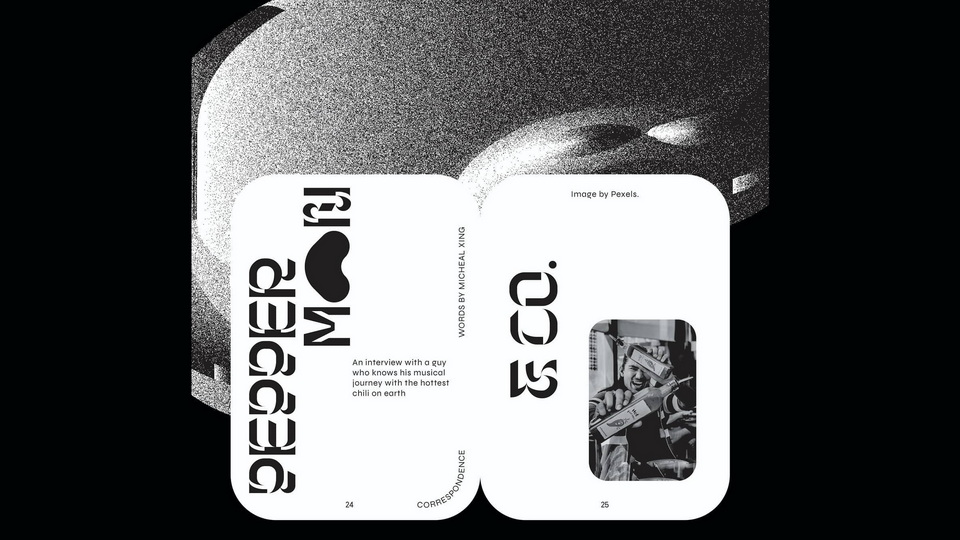
A take on modern inktrap typefaces, Capsaicin is a wilder rendition of such a kind. With the liberal use of inktraps and sharp ends, it became like a 'stinger' itself. Capsaicin is a component that can be found in chili peppers, and it causes people's skin to have a burning sensation.